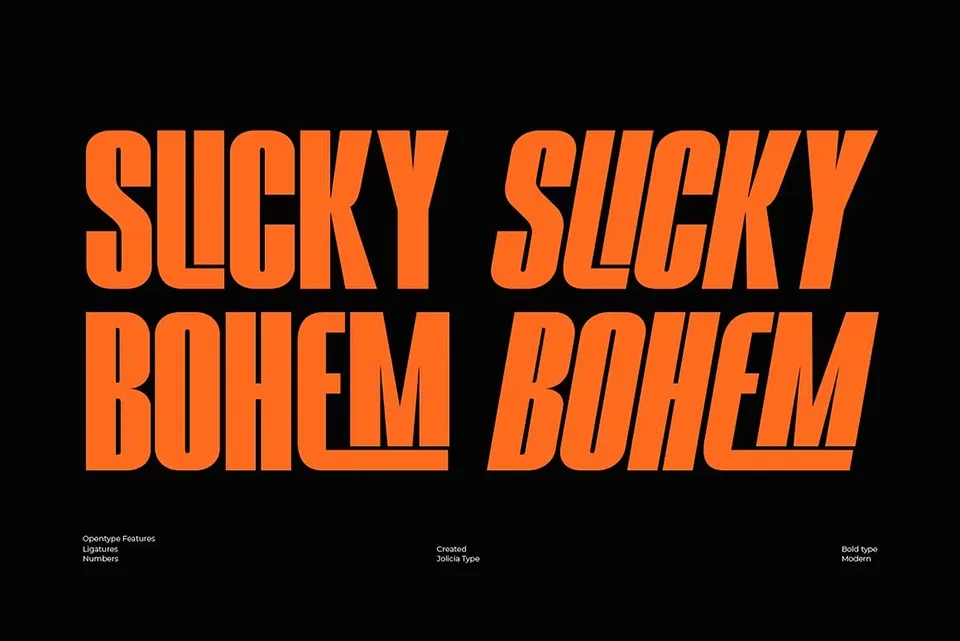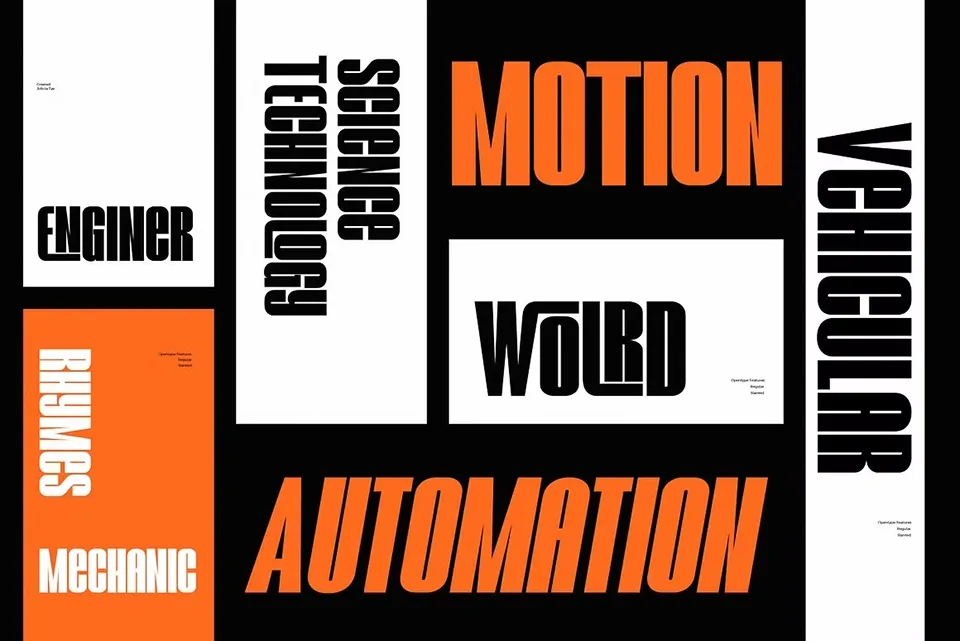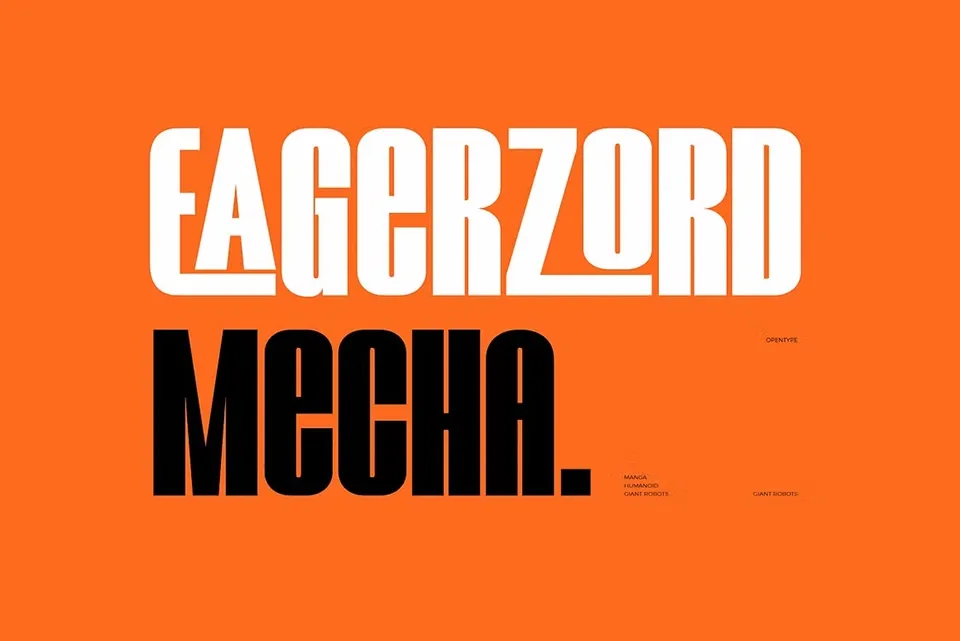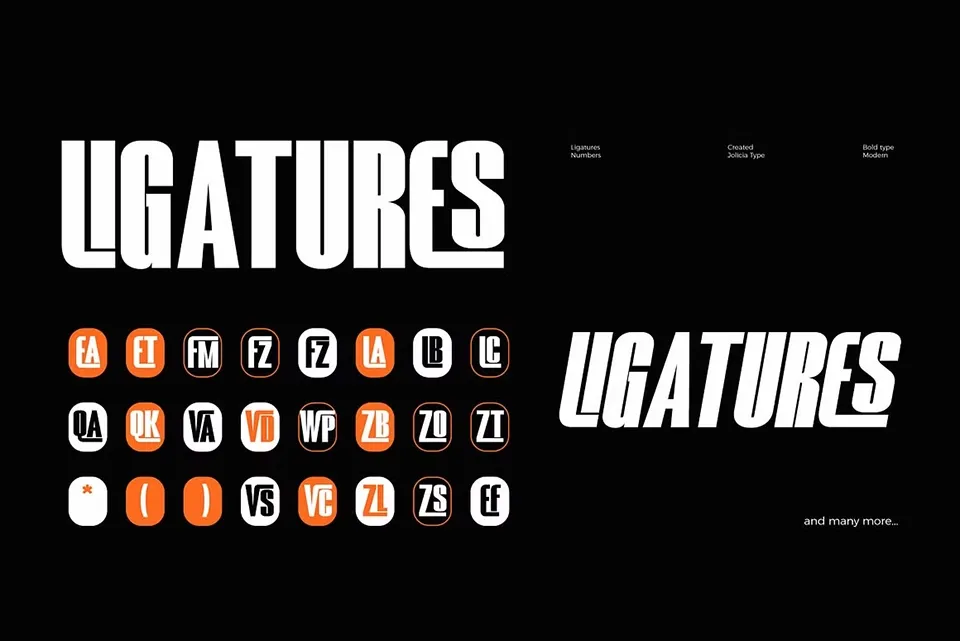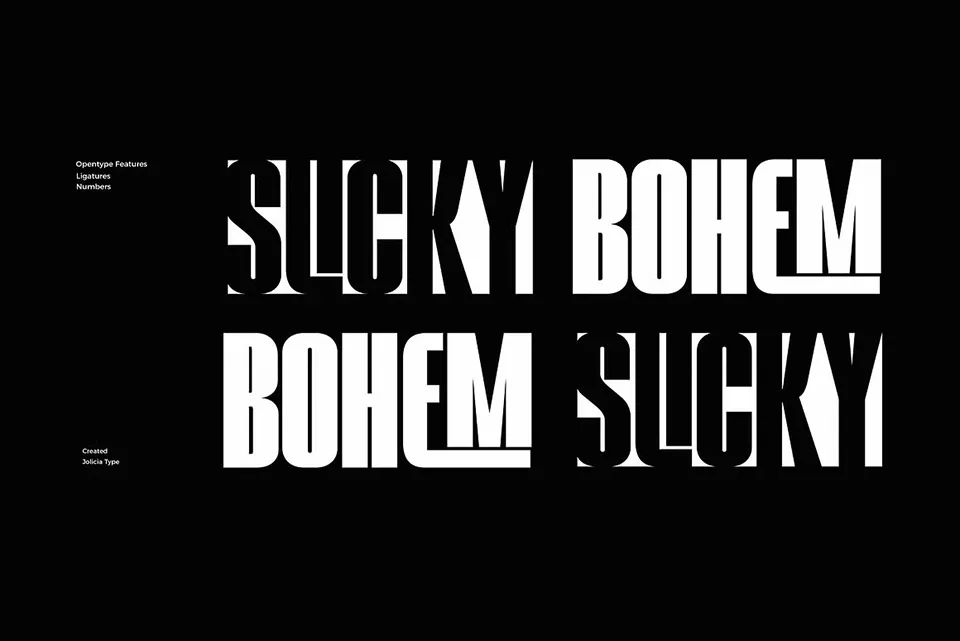
Slicky Bohem Font
Slicky Bohem Font is a bold and condensed display font created by Jolicia Type. Inspired by sports aesthetics, this typeface features a strong, modern look with impactful letterforms. It comes equipped with a variety of unique discretionary ligatures, providing flexibility for creative typography and helping your designs stand out. Slicky Bohem is highly recommended for projects needing to grab attention, such as dynamic poster designs, memorable logos, commanding headlines, and standout t-shirt graphics. Its distinctive style ensures your creative work makes a bold statement. A free version is available for personal use.